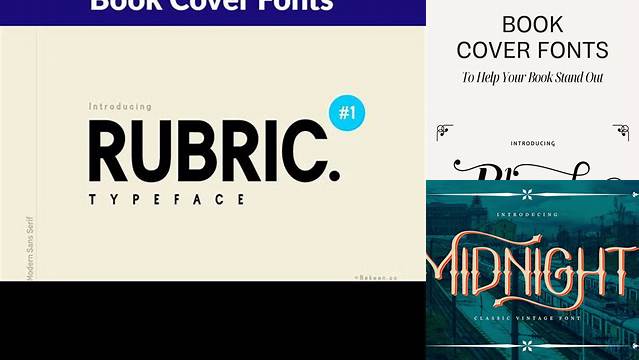
The Power Of Bold Fonts For Book Covers
Hey everyone! Have you ever wondered what makes a book cover truly pop? Well, a huge part of that is the font. It's the first thing people see, the silent messenger that sets the tone and draws readers in. Today, we're diving deep into the world of bold fonts for book covers. We'll explore why they're so effective, how to choose the perfect one, and some amazing examples to get your creative juices flowing. So, grab your favorite beverage, and let's get started!
The Power of Bold Fonts: Why They Matter
Bold fonts on book covers are like the spotlight on a stage. They grab attention and command respect. They're not just about making the title visible; they're about making a statement. Think of it this way: your book cover is your first handshake with potential readers. A well-chosen bold font can communicate a lot about your book before anyone even reads the blurb. It can suggest the genre, the tone, and even the overall style of the story. Guys, it's all about making that killer first impression!
Bold fonts instantly catch the eye. In a crowded marketplace filled with countless titles, you need something that shouts, “Look at me!” A bold font does exactly that. It’s easily readable from a distance, whether it's on a bookstore shelf, online, or in an ad. This readability is crucial. If your title is lost in a sea of delicate script or overly complex designs, you’re losing potential readers before they even get a chance to consider your book. This also allows the reader to understand the title, even from a short distance.
They also provide an impactful visual hierarchy. The font helps in distinguishing the title, subtitle, and author’s name, providing a visual structure that guides the reader. This is extremely important for the overall layout and readability of the book cover. In a world saturated with content, clarity is king. They are effective in providing contrast and creating emphasis. In a design that uses other elements, such as images or other text, a bold font can provide a striking contrast. It ensures that the title is easily distinguishable from the background. This contrast is critical for the readability of the title. A properly chosen font should complement the overall design, enhancing the book's appeal. Strong fonts also suggest confidence and strength. They convey that the book is worth reading and that the author is confident in their work. It's a subtle, yet powerful, message that can influence a reader's perception and interest in the book, ultimately leading to sales. The boldness also helps in reflecting the content and the genre. For instance, a sci-fi novel might use a futuristic bold font, while a romance novel might use a bold font, but with a more elegant or stylized touch. They also add to the overall branding. A consistent use of the same font throughout the book’s cover design, as well as on promotional materials, helps in creating a strong brand identity.
Choosing the Right Bold Font: A Practical Guide
Alright, let's get down to the nitty-gritty, guys! Choosing the right bold font isn’t just about picking something that looks cool. It's about finding a font that perfectly complements your book's genre, tone, and overall message. You want to consider the readability and the visual appeal. The font should be easy to read at various sizes and distances. Also, the font should be visually appealing and enhance the overall aesthetics of the cover design. Here are some tips to guide you:
First, consider the genre. Different genres call for different aesthetics. A gritty thriller might benefit from a strong, sans-serif font, while a historical romance might lean towards a serif font with a touch of elegance. Think about the mood and feel of your story. Does it have a touch of mystery, or perhaps it is adventurous? The font must match that tone. Second, think about readability. Is the font easy to read from afar? Some bold fonts are visually appealing but can be difficult to decipher at smaller sizes, especially on digital devices. Third, consider the visual style of the font. The shape, weight, and style of the font can communicate different ideas and evoke certain emotions. Experiment with various fonts and see which ones best reflect the essence of your story. Fourth, understand the font’s personality. Some fonts are powerful and commanding, while others are playful and friendly. Think about the impression you want your cover to make. The font should align with that message. Finally, make sure it complements the other elements on your cover. The font should work harmoniously with any images, colors, and design elements. Ensure that the font design balances well with the design of your book cover. Experiment with different combinations and find the perfect fit. By following these tips, you can make an informed decision and choose a font that not only looks great but also perfectly represents your book.
Common Bold Font Styles
- Serif Fonts: These fonts have small strokes at the ends of the letters and often feel classic and elegant. They can be excellent for genres like historical fiction, literary fiction, and memoirs. Examples include Times New Roman, Garamond, and Baskerville.
- Sans-Serif Fonts: Sans-serif fonts lack those small strokes, giving them a modern and clean look. They are great for contemporary fiction, thrillers, and science fiction. Popular options include Helvetica, Arial, and Futura.
- Display Fonts: These fonts are designed to be used at large sizes and often have unique and eye-catching designs. They can be perfect for creating a specific mood or genre. Consider fonts like Impact, Bebas Neue, or Montserrat.
Bold Font Examples: Inspiring Book Cover Designs
Let’s take a look at some real-world examples of bold fonts done right, shall we? These examples should give you a better idea of how to use the font style.
- Example 1: “The Girl with the Dragon Tattoo” by Stieg Larsson: The bold, sans-serif font used for the title creates a sense of intrigue and strength, perfectly matching the thriller genre. The font is easily readable and creates a visual contrast against the image. The font adds a modern touch to the cover, and the red text adds a subtle touch that increases the cover appeal.
- Example 2: “Pride and Prejudice” by Jane Austen (various editions): Many modern editions of this classic use bold, elegant serif fonts to convey the historical setting and the romantic genre. The use of serif fonts gives the cover an elegant and stylish look. The font adds a touch of sophistication to the overall book cover design. This style clearly represents the style of the time. The font choice reflects the era in which the novel is set.
- Example 3: “Dune” by Frank Herbert: Many covers use bold, futuristic fonts that evoke the science fiction world of the book. This choice helps in the overall design of the cover. The font highlights the book’s futuristic theme, and it creates a distinct visual style that is easily associated with the book.
Bold Fonts for Book Covers: The Final Word
Bold fonts are an essential tool in your book cover design arsenal. They draw attention, set the tone, and help you make a strong first impression. By understanding the power of bold fonts, carefully selecting the right one, and following these tips, you can create a book cover that not only looks great but also attracts readers and boosts sales. Now go forth and create those amazing covers! If you want to see more of the font styles, do some more research about them, and you can always ask for help from professionals. Good luck, guys!